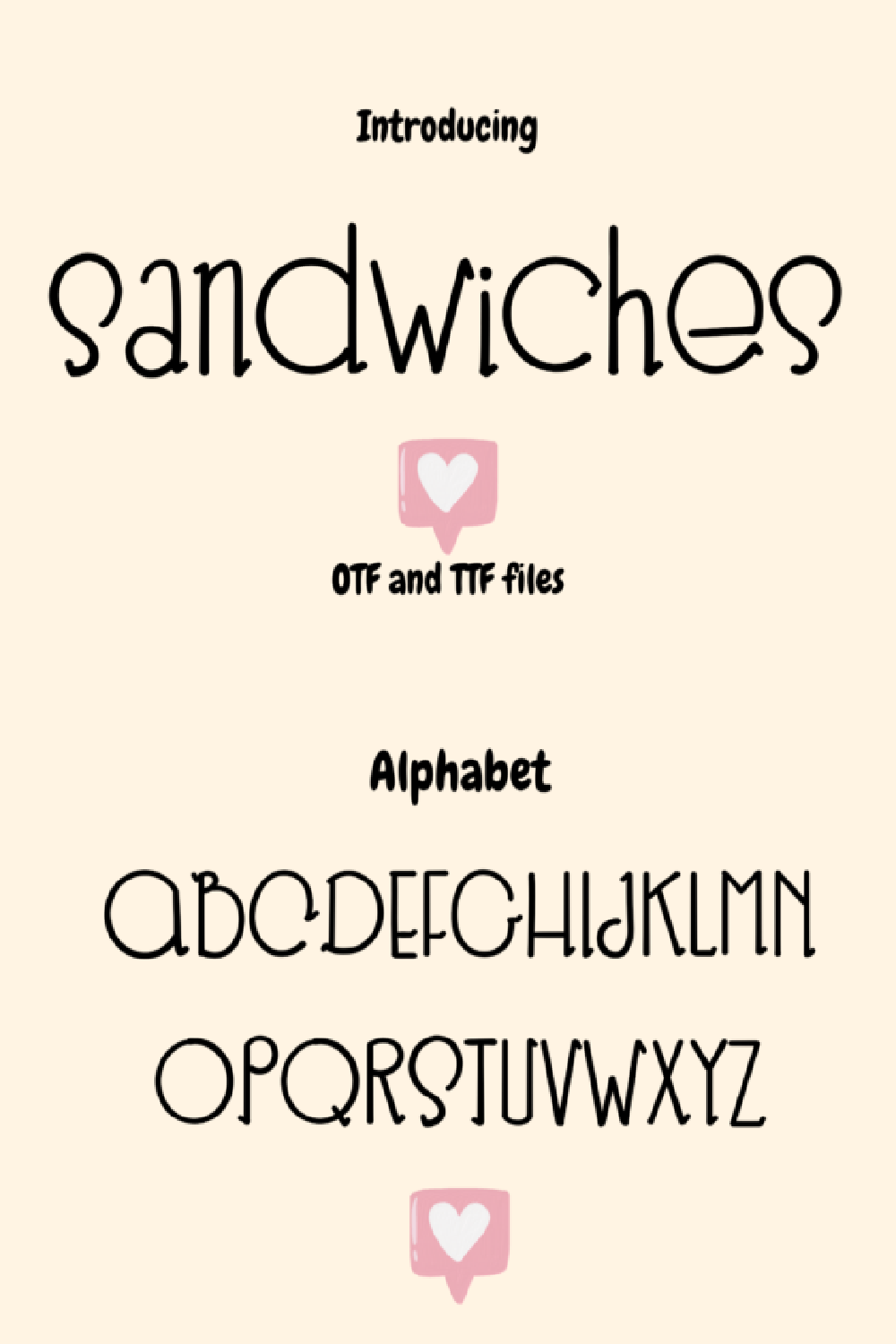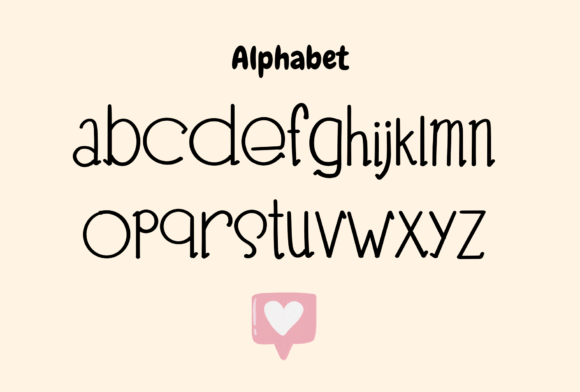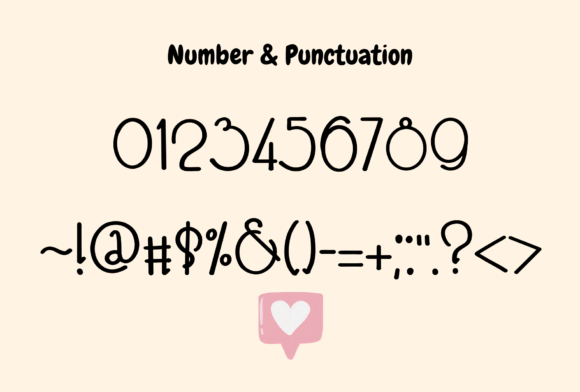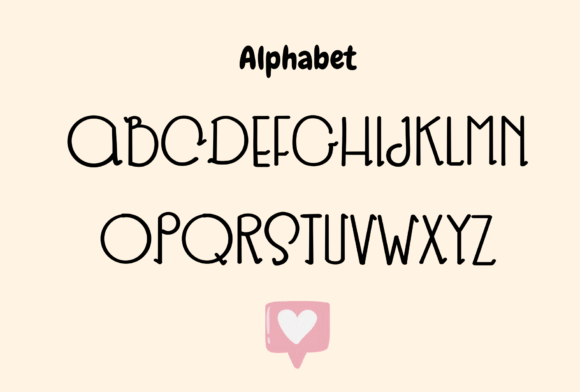
Sandwiches Font: A Cute Handwritten Font for Cricut & DIY Projects
About the Sandwiches Font
Introducing the Sandwiches Font, a beautifully crafted typeface designed to elevate your creative projects. Sandwiches handwriting font,Super cute handwriting font, simple style, suitable for teaching. decorate the presentation Use for education, advertising, illustration, multi-purpose use. welcome everyone thanks,It is a creative, simple design that is suitable for all applications.